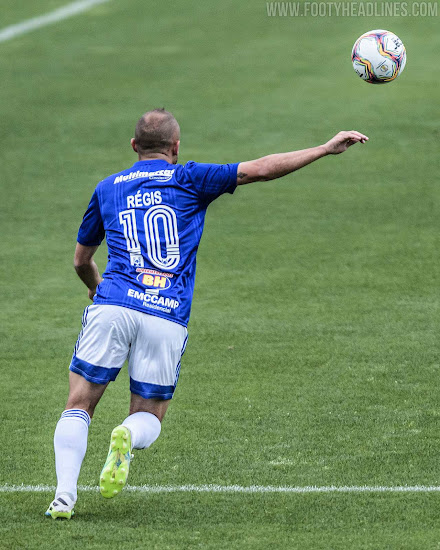
On Pitch: Cruzeiro 20-21 Third Kit Font Unreadable
The numbers on the new Adidas Cruzeiro 2020-21 third kit are almost unreadable, as these pictures sent to us by @samaronylp show.
The new Cruzeiro 20-21 third kit was debuted last night, just hours after it was unveiled.
Cruzeiro 20-21 Third Kit Numbers
This picture shows the numbers on the back of the new Cruzeiro jersey.
Instead of doing the sensible thing and going with white names and numbers on the back of the dark blue shirt, Adidas and the Brazilian club chose something different.
The player names are dark blue of all colors, which barely distinguishes them from the background, while the numbers are even worse, fading from royal blue to navy and featuring a subtle border.
As you can see on the attached pictures, it's very hard to make out the numbers, let alone the player names.
The regular home kit font would have done just fine, and one might argue it's a better look typographically as well.